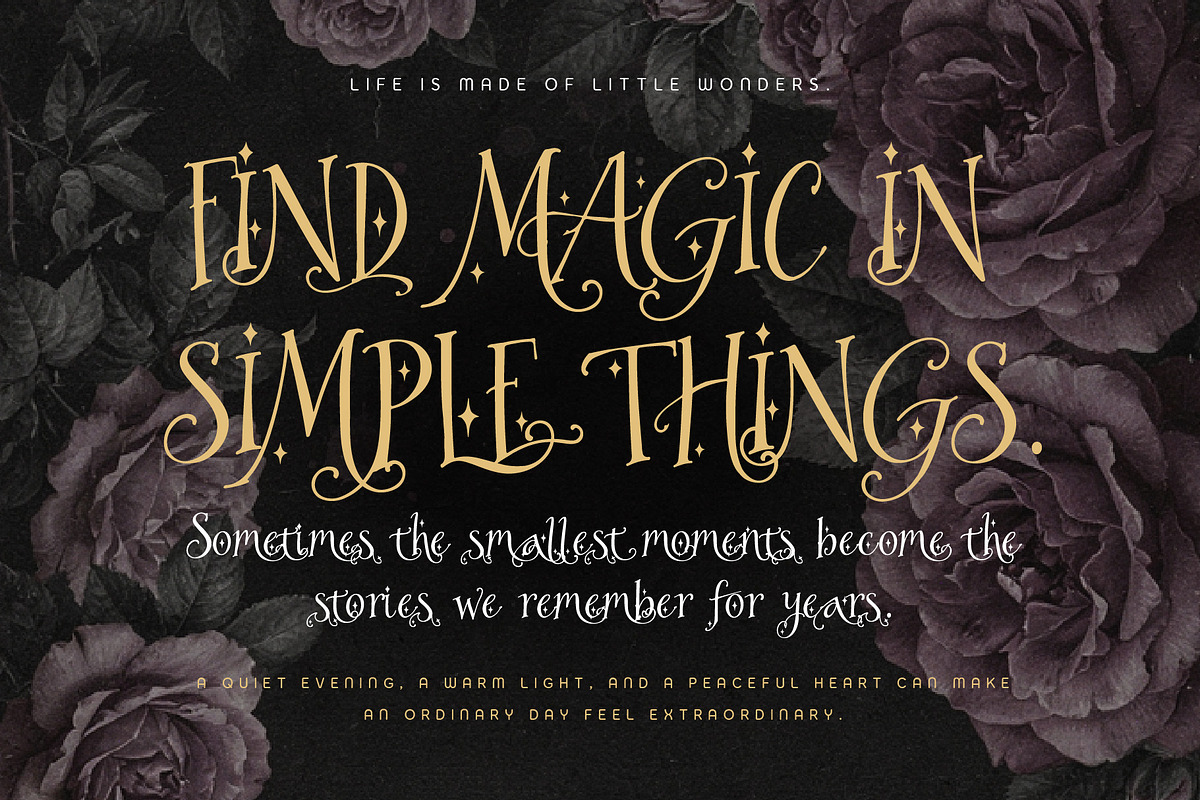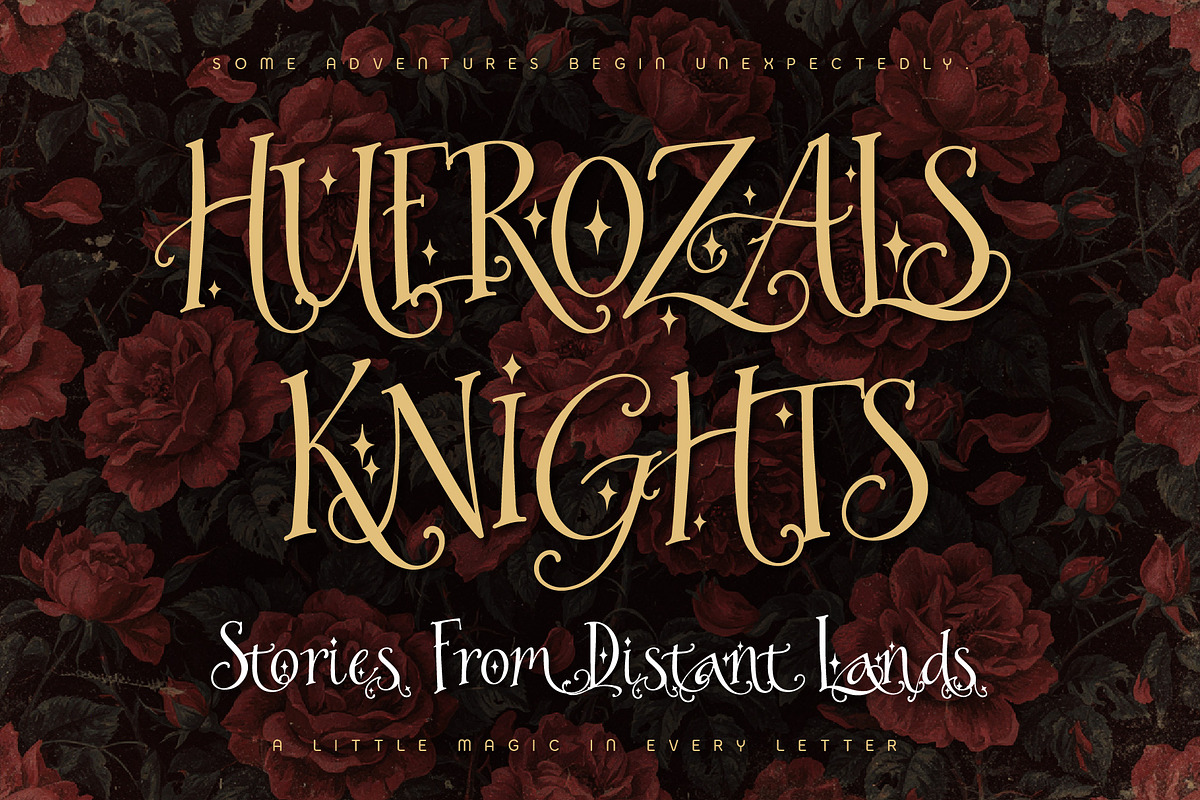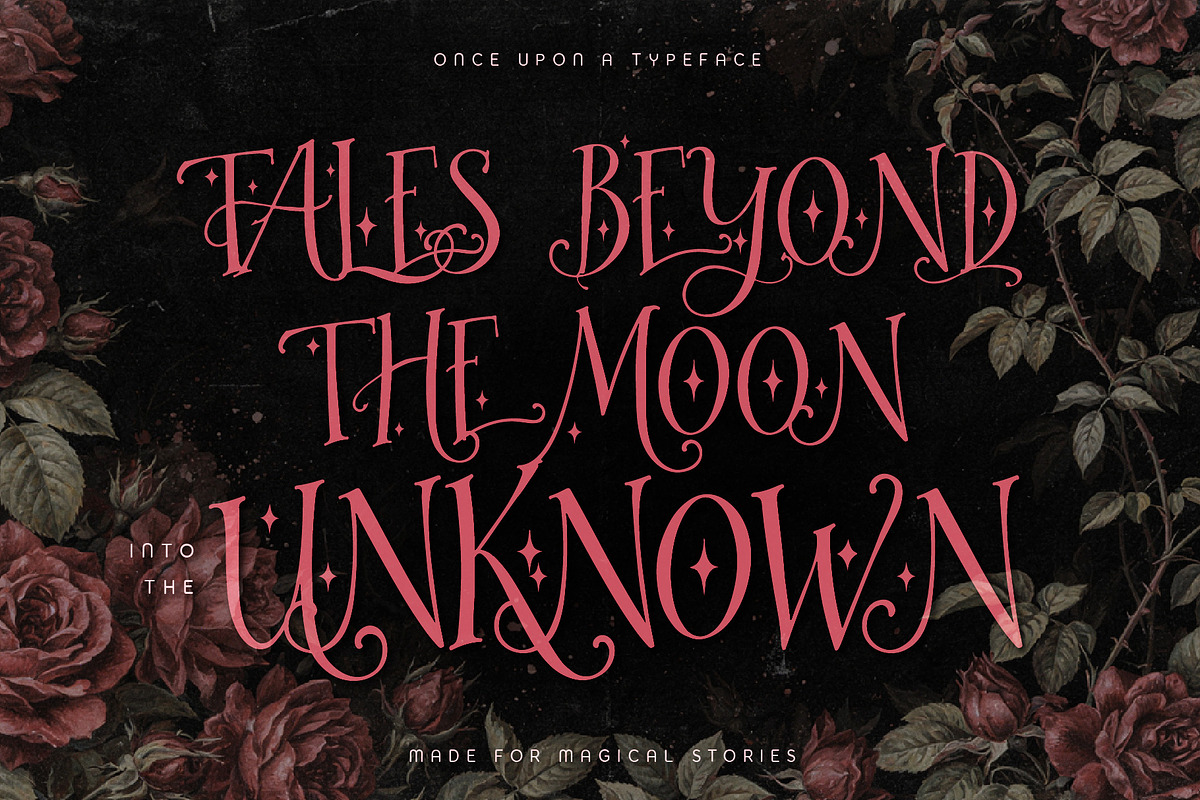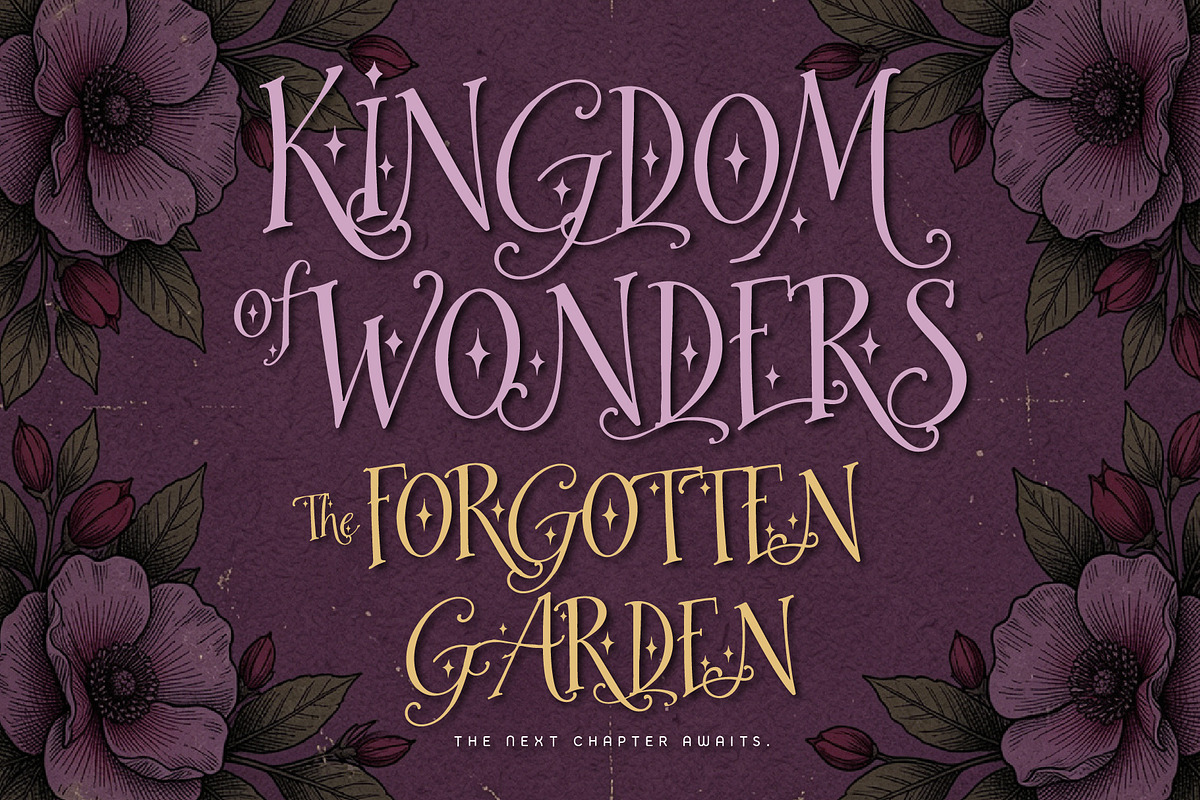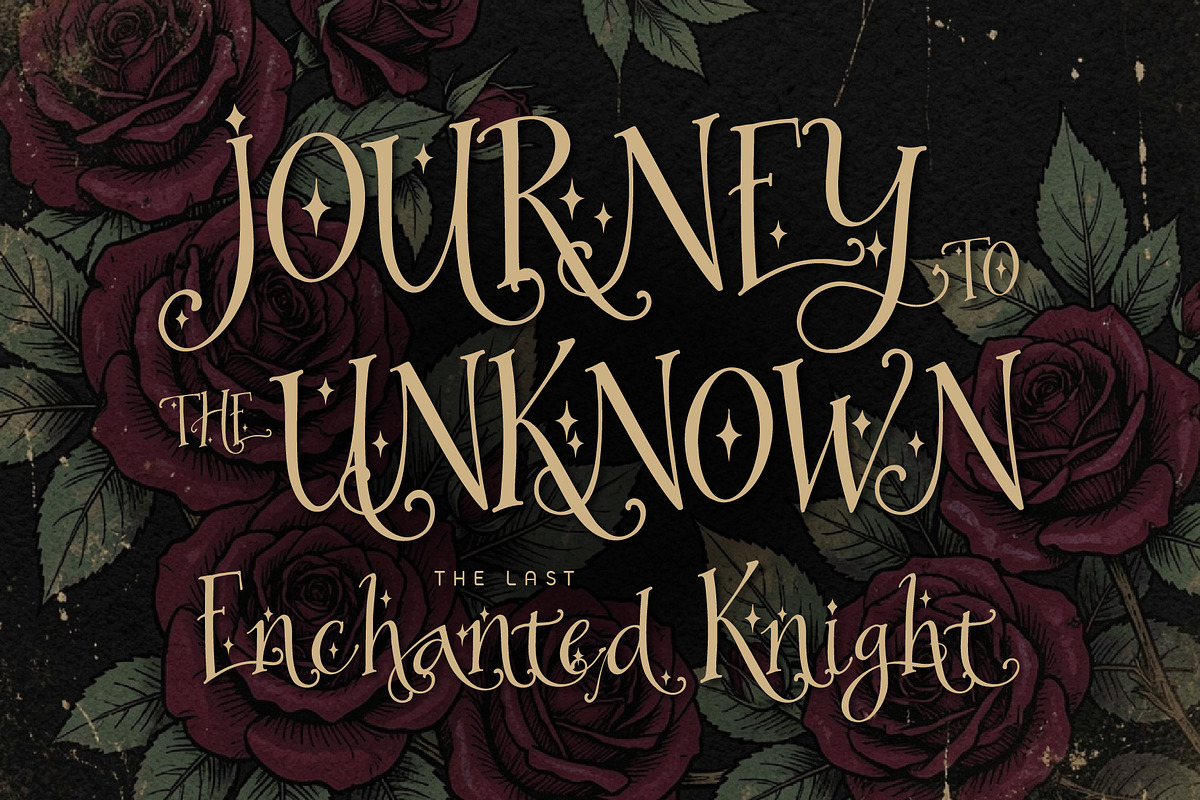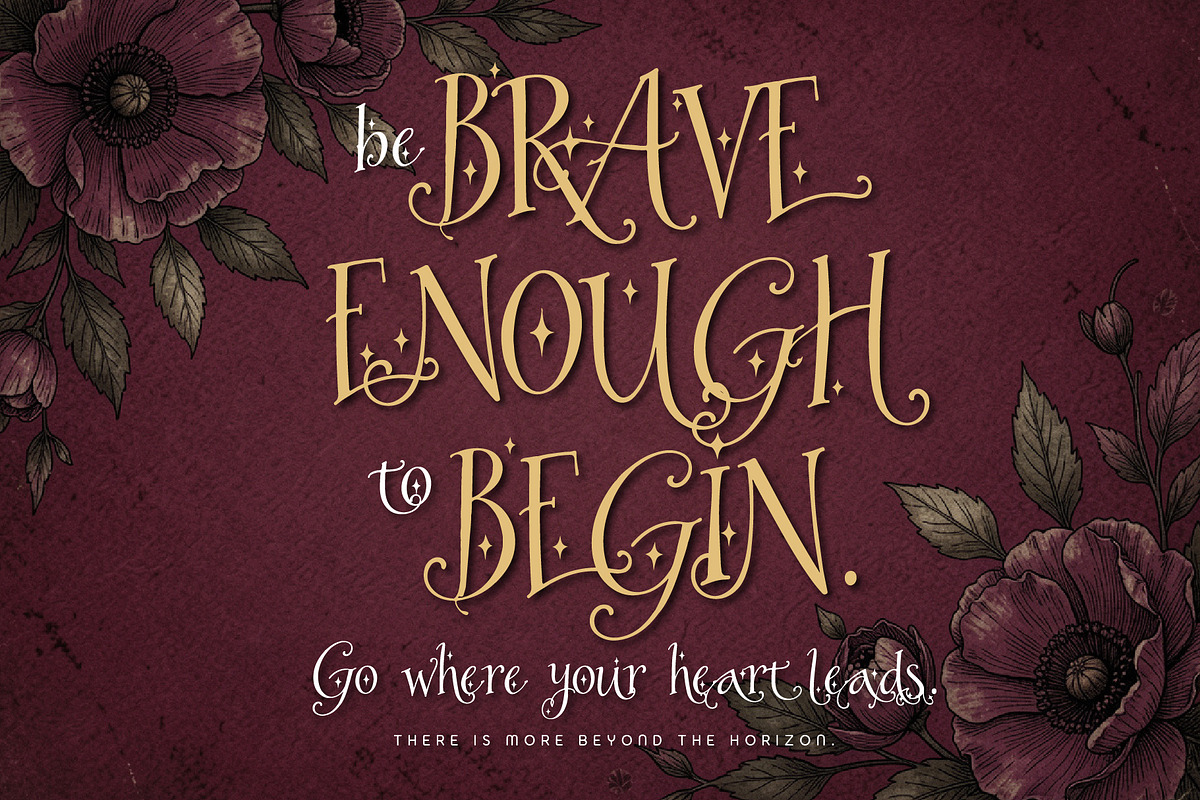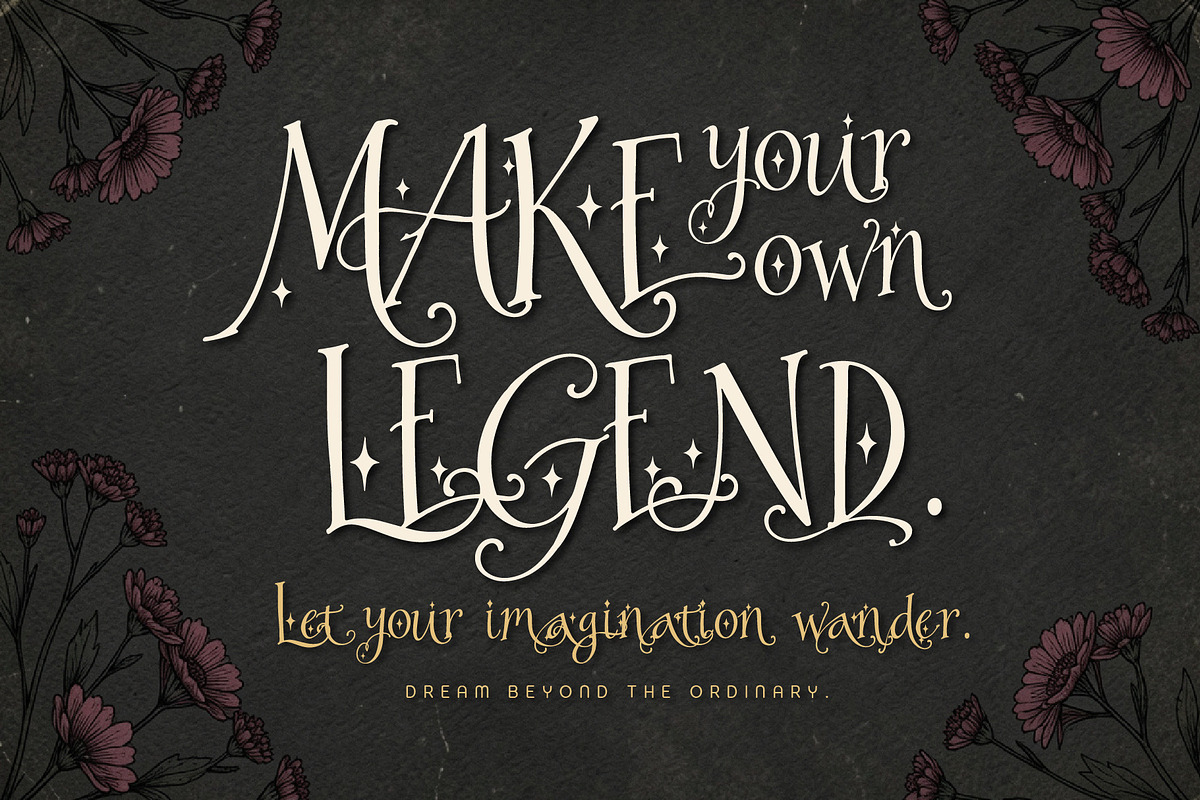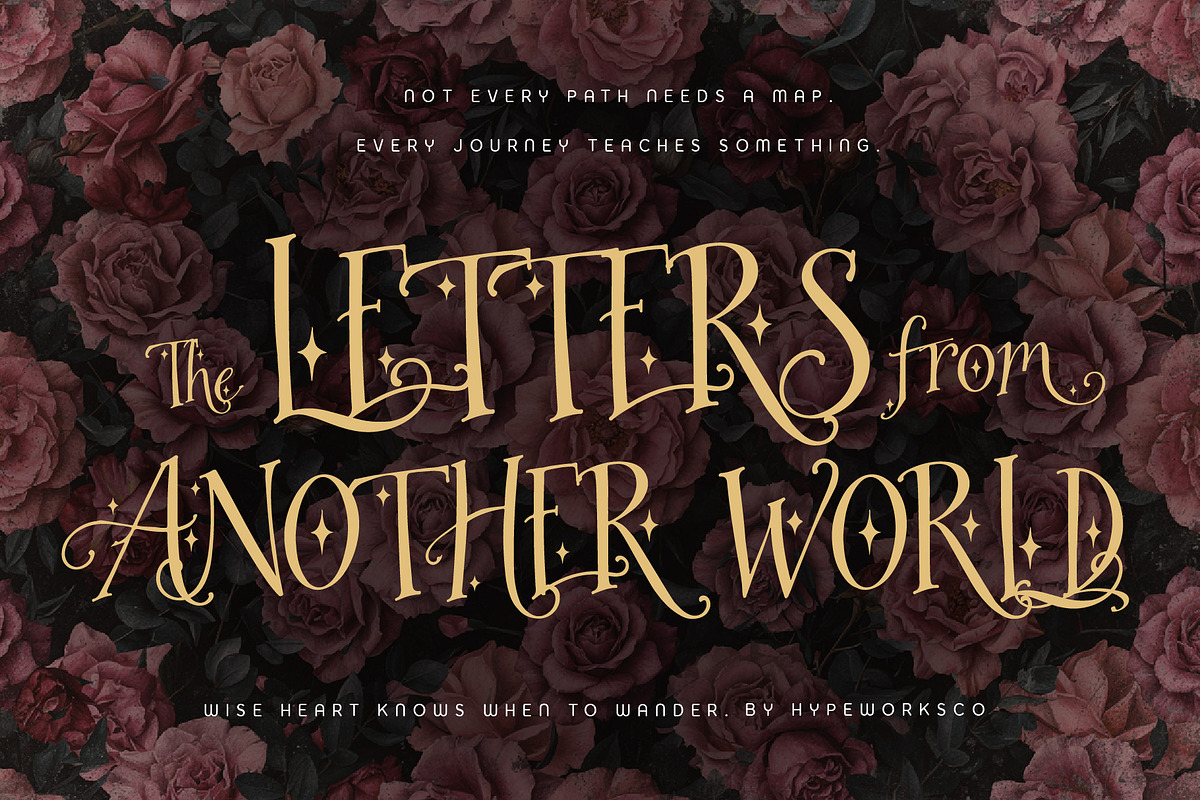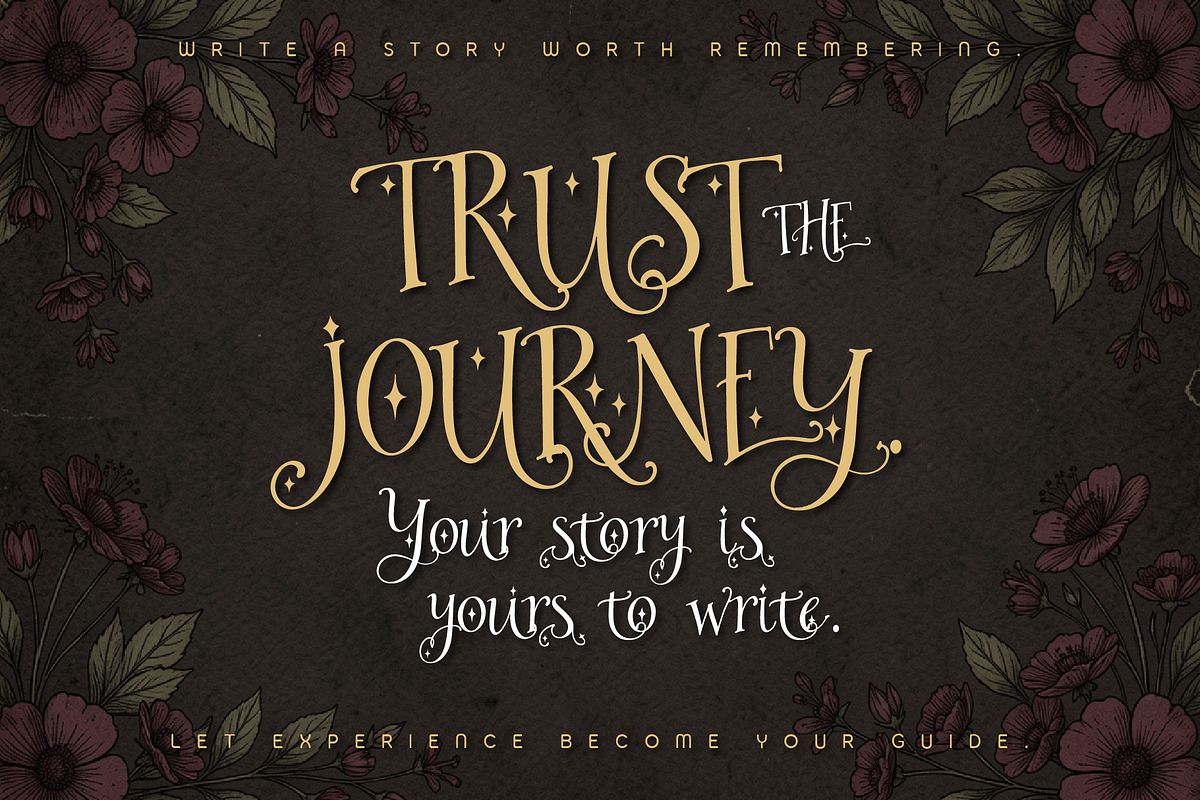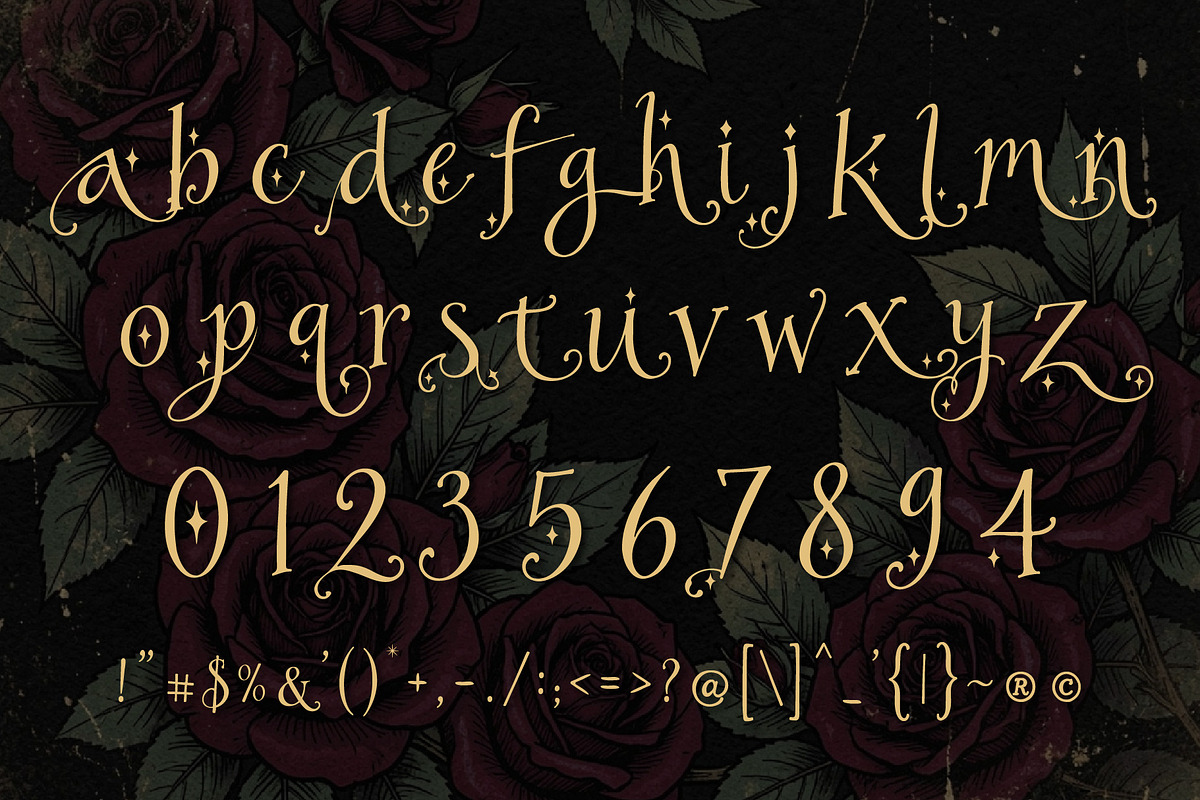
Huerozals Knights - Magical Fantasy
Huerozals Knights is a magical and whimsical display font inspired by fairytale adventures, ancient legends, and the mysterious atmosphere of 1001 Nights. Its artistic letterforms carry a sense of wonder, storytelling, and distant lands, creating a distinctive fantasy character for every word.
With a modern Middle Eastern-inspired atmosphere and an adventurous storybook spirit, Huerozals Knights feels mysterious, imaginative, and beautifully unconventional. It is perfect for fantasy book covers, fairytale novels, adventure titles, movie posters, games, magical branding, illustrations, packaging, children's stories, and creative editorial projects.
A magical typeface for stories filled with wonder, mystery, adventure, dreams, and places beyond imagination.